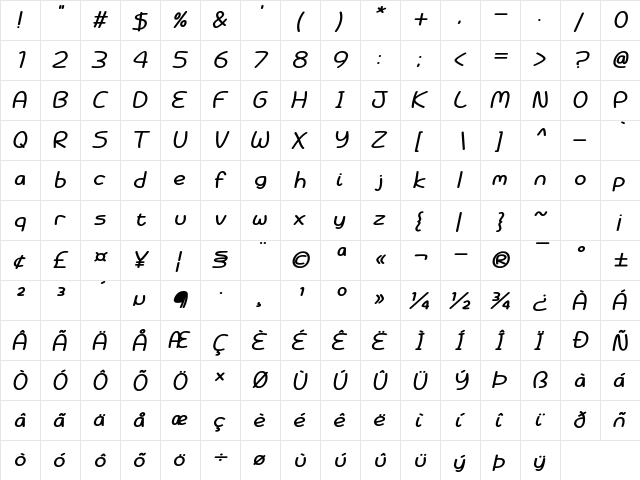
Battenberg and Custard Bold Italic Font Preview
Design Context for Battenberg and Custard Typeface
Battenberg and Custard is a composed and adaptable typeface that performs quietly and consistently across a wide range of design contexts. The dynamic lean of this cut emphasises speed and emphasis in any layout. The heavy weight commands attention and anchors typographic hierarchies.
Pro Tip: Try Battenberg and Custard for annotation and caption copy alongside an upright companion — the contrast in angle creates a dynamic but ordered typographic system.